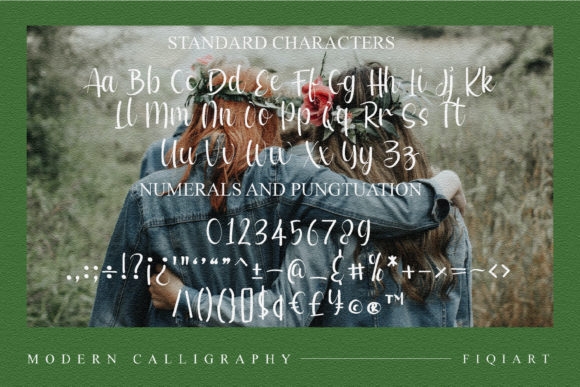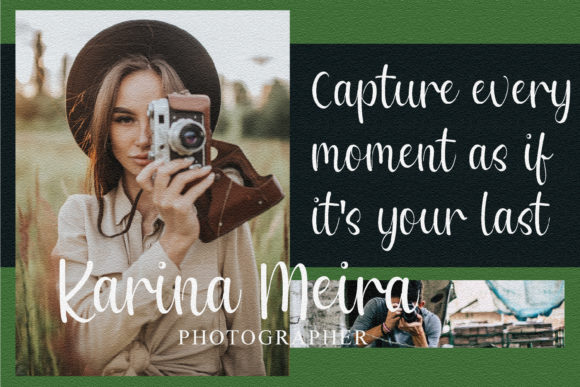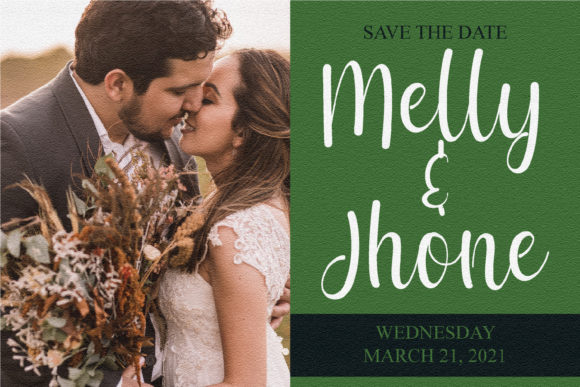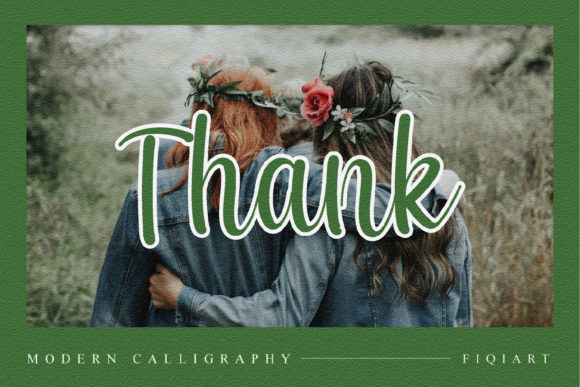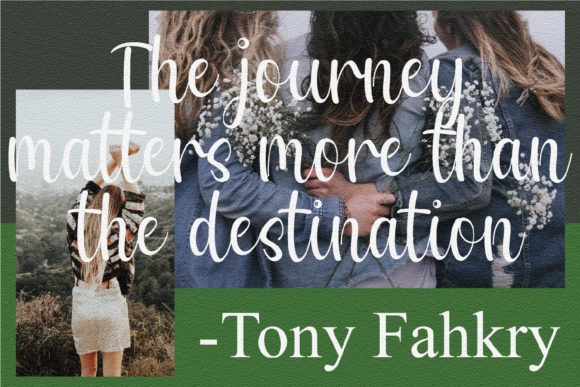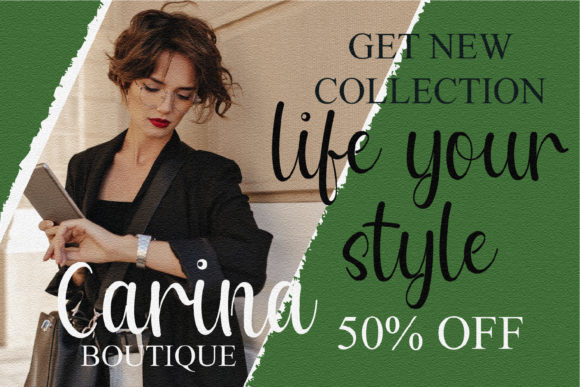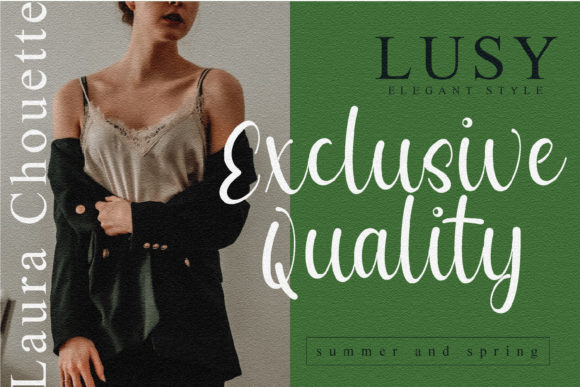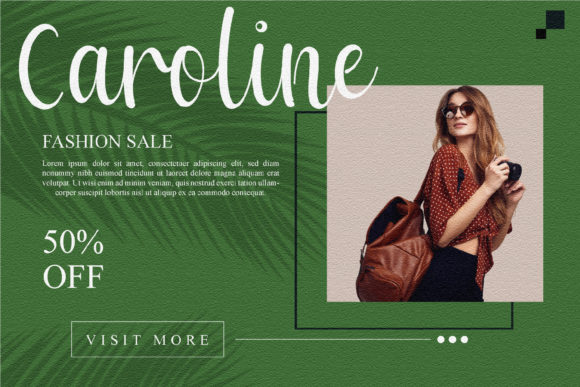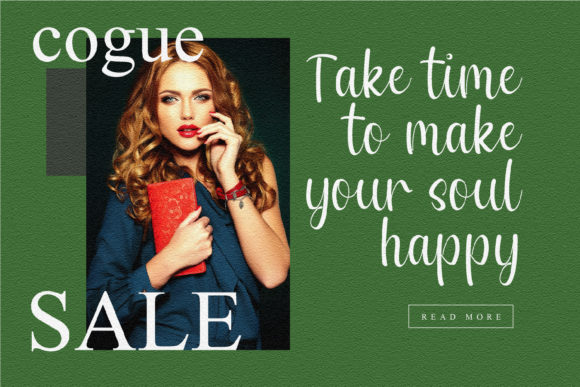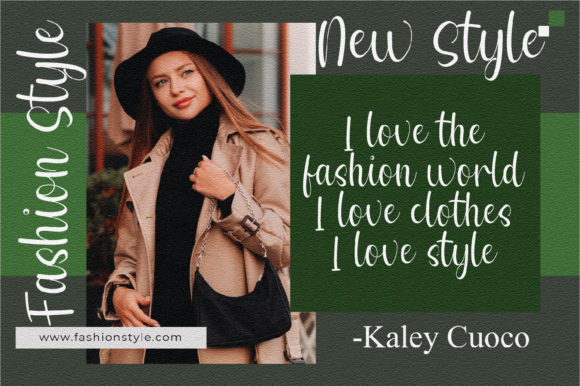
Wenny Flower Font
About Wenny Flower Font
Wenny Flower is a casual handwritten font. Add this font to your creative ideas and notice how it will make them stand out!